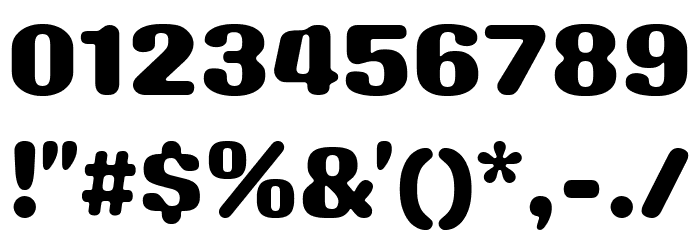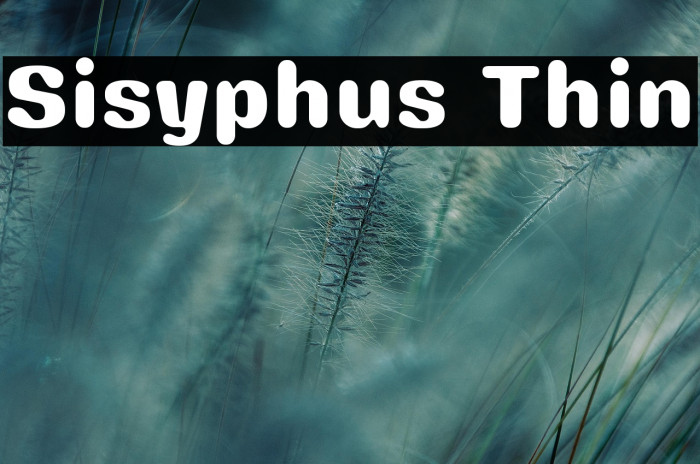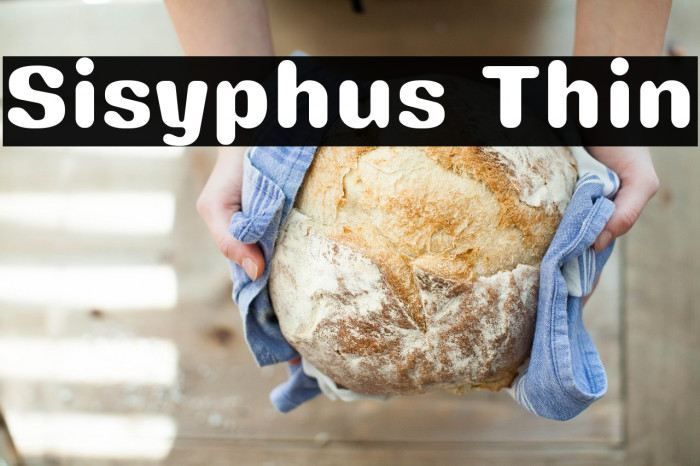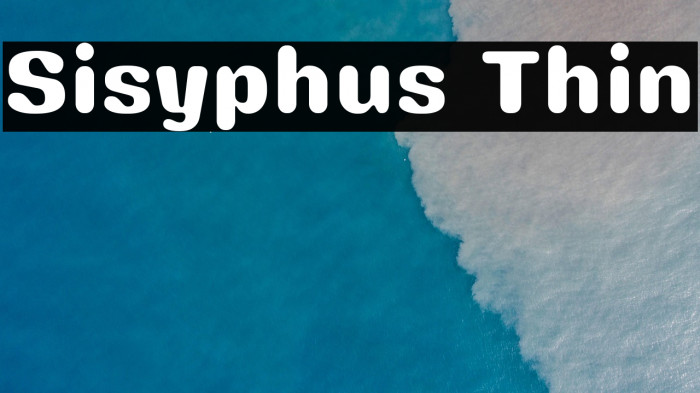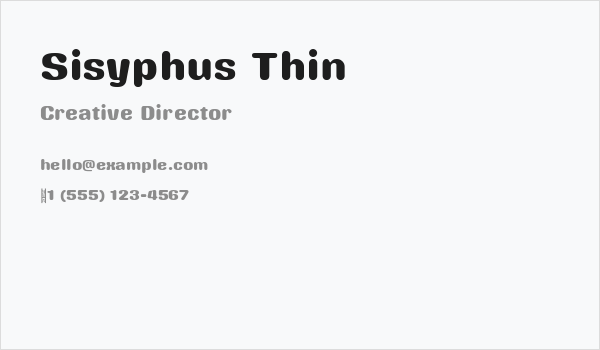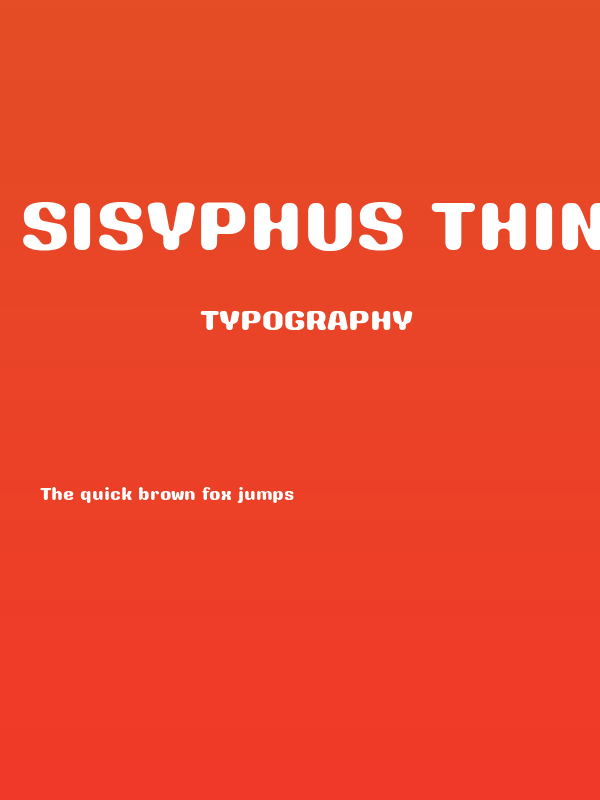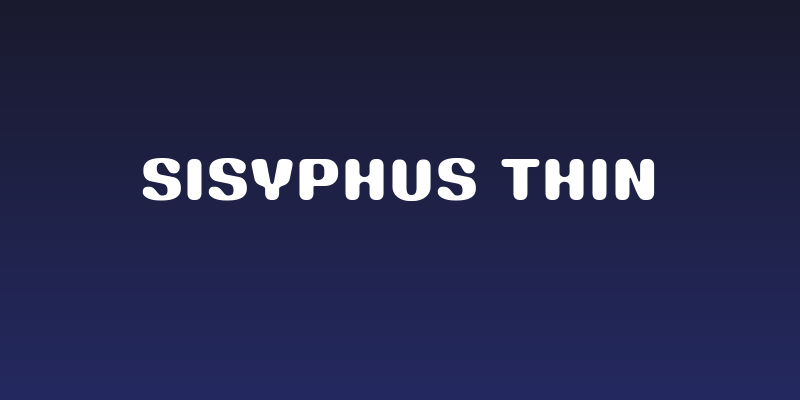
Sisyphus Thin Font
This font features a bold and rounded style, characterized by its thick strokes and smooth curves. The uppercase letters are uniform in height, providing a consistent and balanced appearance. The lowercase letters maintain a similar rounded aesthetic, with a slightly playful and approachable feel. Numbers are bold and clear, ensuring readability. Special characters are designed to match the overall rounded theme, making them cohesive with the rest of the font. The font's design is modern and friendly, suitable for a variety of applications where a bold and inviting look is desired.
A bold, rounded font with smooth curves and a modern, approachable style.
- Proposed Projects: Ideal for branding, advertising, packaging, and children's books due to its friendly and bold appearance.
- Use Case: Headlines, Logos, Branding